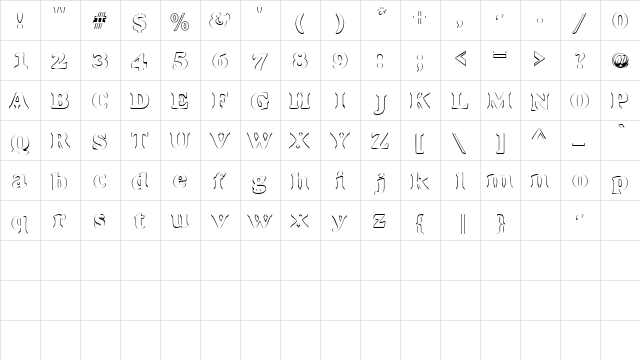
SouvenirOpenFaceSSK Regular Font Preview
SouvenirOpenFaceSSK Regular
SouvenirOpenFaceSSK Regular Font Details
Design Context for SouvenirOpenFaceSSK Typeface
SouvenirOpenFaceSSK takes a measured approach to typography — its balanced proportions and neutral character make it a reliable workhorse for both digital and print work.